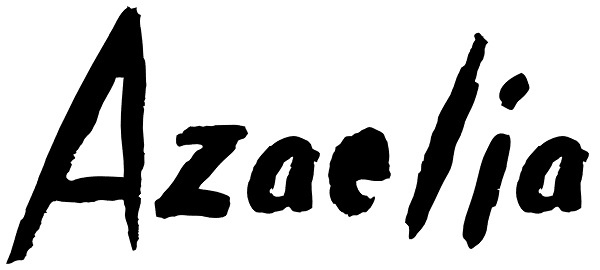
Azaelia
A unique and hand painted font collection by Cultivated Mind. The Azaelia Family comes with a beautiful font, handmade frames, page dividers, ribbons and fancy flourishes.
Azaelia Ornaments
Azaelia Ornaments Font
Azaelia
Azaelia Font
Azaelia Frames
Azaelia Frames Font